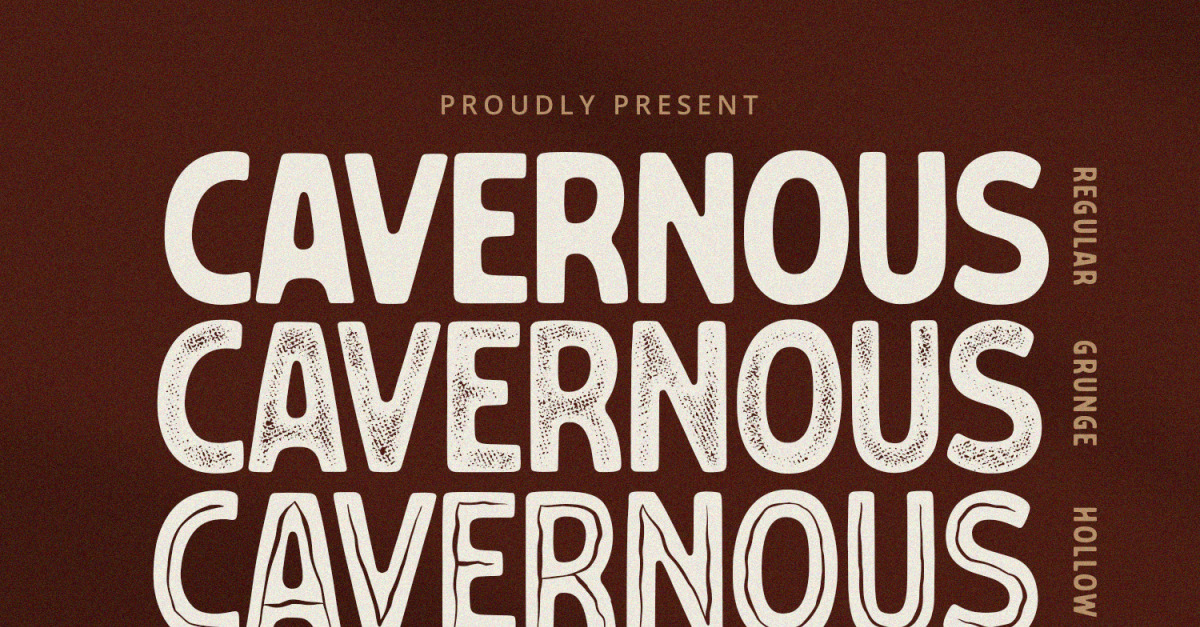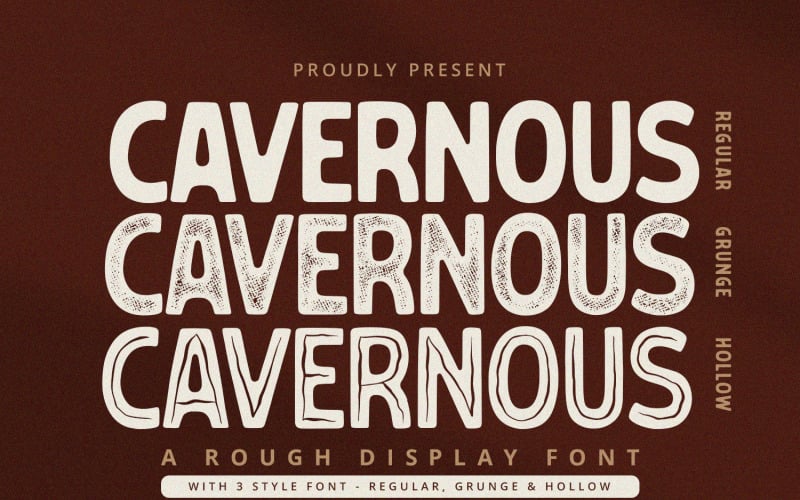
Cavernous - Rough Display
Cavernous is a rough display font with unique and classic feels. It will be perfectly used for Branding, Logo Design, Lettering, Logotype, Clothing, Poster, magazine, packaging, posters, shopping bags, t-shirts, book covers, photography, special events and other design project.